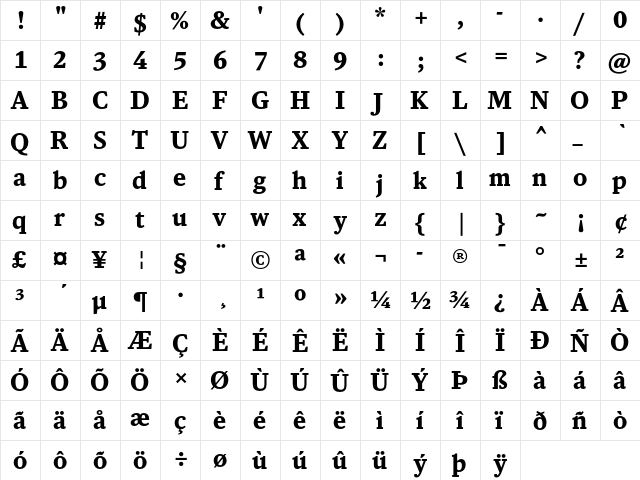
DB News TF Bold
Design Context for DB News TF Typeface
DB News TF takes a measured approach to typography — its balanced proportions and neutral character make it a reliable workhorse for both digital and print work. The heavy weight commands attention and anchors typographic hierarchies.